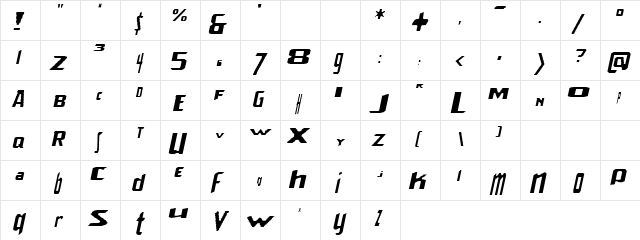
Venereal Strobe Effect Italic Regular
Design Context for Venereal Strobe Effect Italic Typeface
Venereal Strobe Effect Italic is a composed and adaptable typeface that performs quietly and consistently across a wide range of design contexts. The slanted form adds forward momentum and visual energy.
Pro Tip: Use Venereal Strobe Effect Italic for emphasis, pull quotes, and subheadings where its slanted energy can add rhythm to the layout.